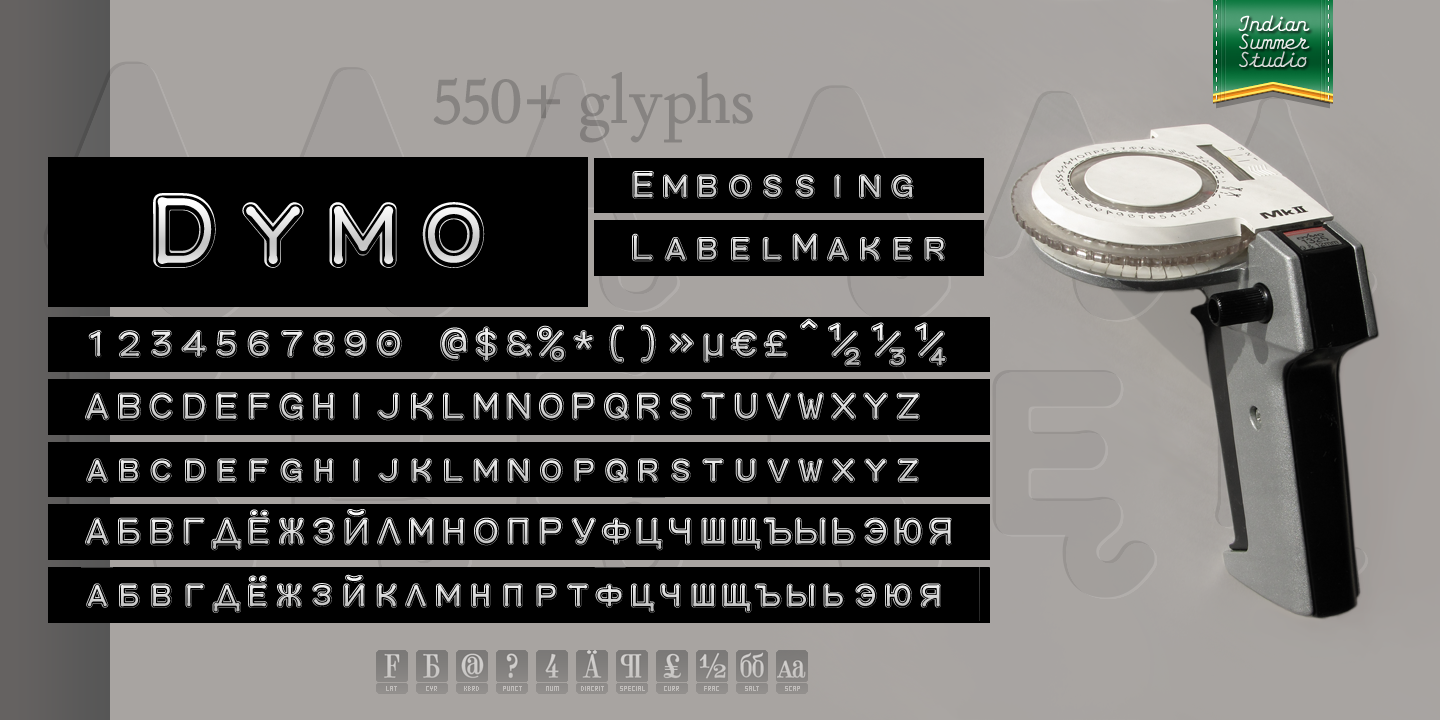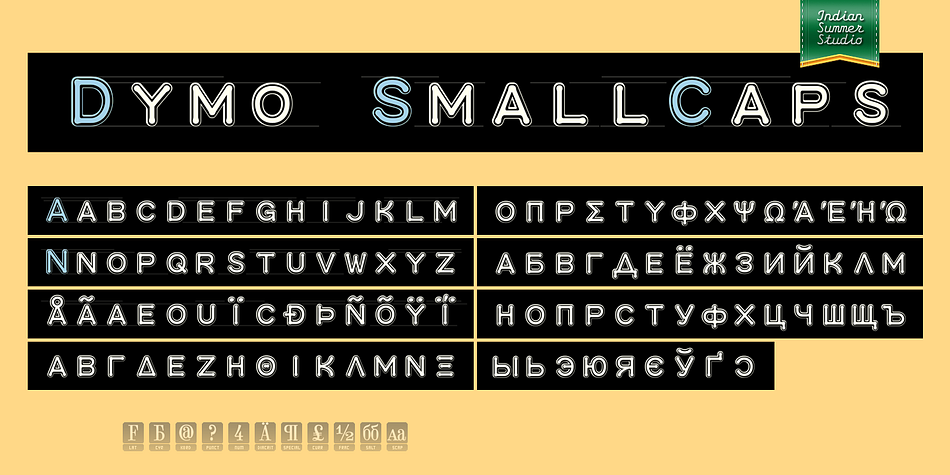
Dymo
Designed by Alexander Bobrov, Dymo is a display sans and typewriter font family. This typeface has two styles and was published by Indian Summer Studio.
The very special historic font, after Dymo 1235 Mk II — 9 & 12 mm label maker, hand printer.
The American company Dymo Industries, Inc. was founded in 1958 to produce handheld tools that use embossing tape.
Add the feeling of ‘60s to you designs.